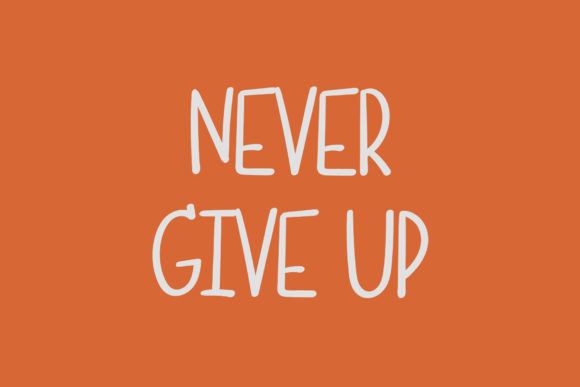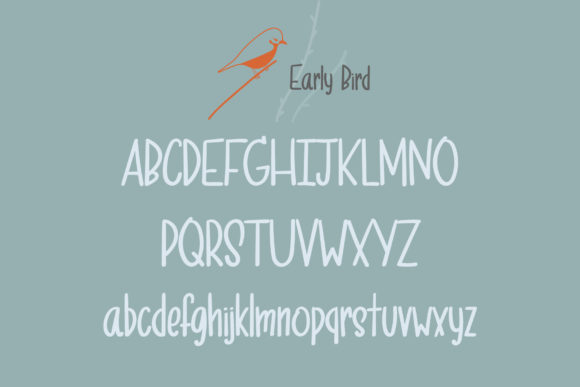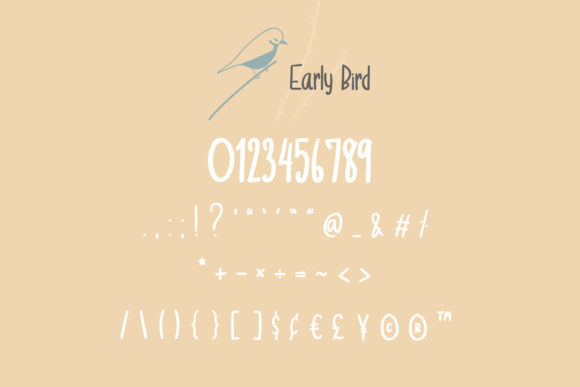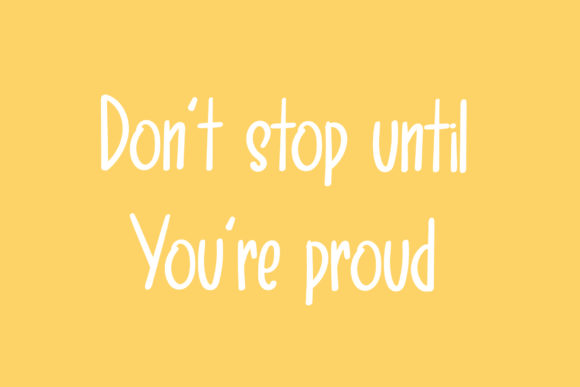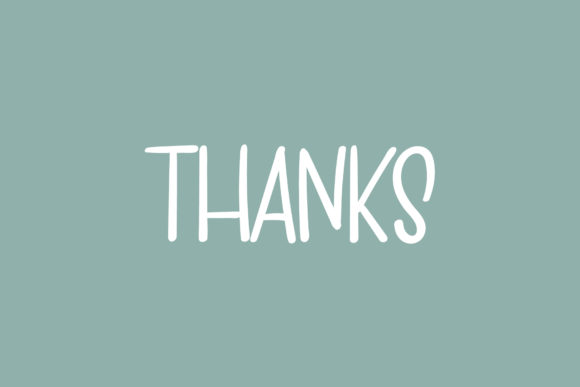
Early Bird Font
About Early Bird Font
Early Bird results out of a stunning pairing of a marker and pencil that makes it look incredibly endearing and authentic. Use this gorgeous and unique handwritten font to bring any DIY project to life!